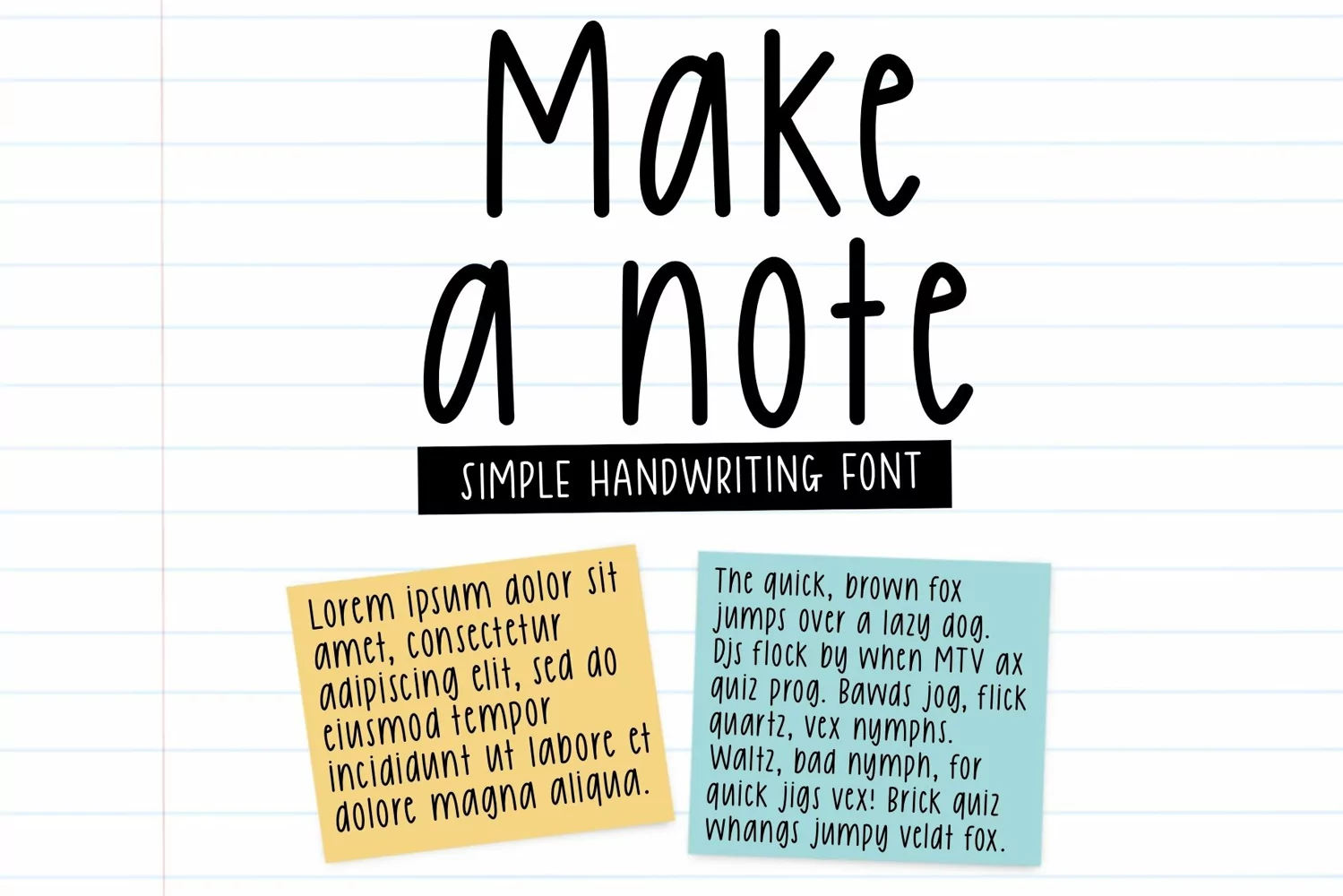
Notebooks handwritten font
Make a Note is a simple, clean and natural handwritten font.
The font includes uppercase, lowercase, accented characters, numbers, punctuations.